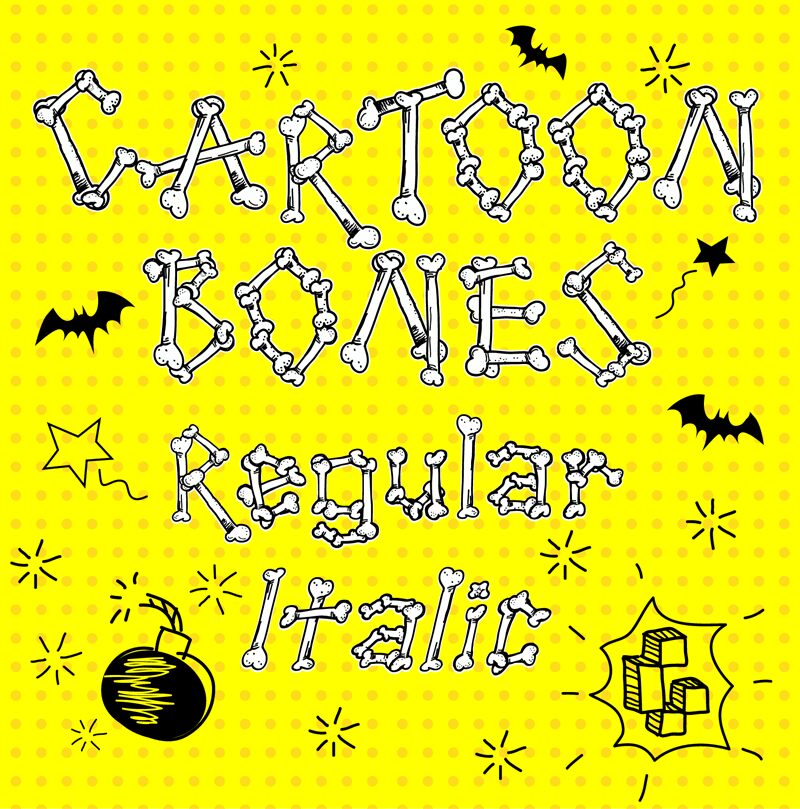
Cartoon Bones Regular
Cartoon Bones font by Galdino Otten Fonts is a display type that captures your attention with its bone-like structure. Whimsical is the appropriate keyword that describes the cartoonish effect provided by this typeface’s decorative elements. Its skeletal theme presents a mysterious aura but in a light-hearted tone for an overall unique visual appearance.
The free decorative font will undeniably upgrade any Halloween design project from party invitations and flyers to trick-or-treat signs and even costumes designs. Its branding abilities will similarly enhance store, restaurant, and cafe signage ideas during this spooky-themed season of every year. Logos, packaging design, video games, animation projects.